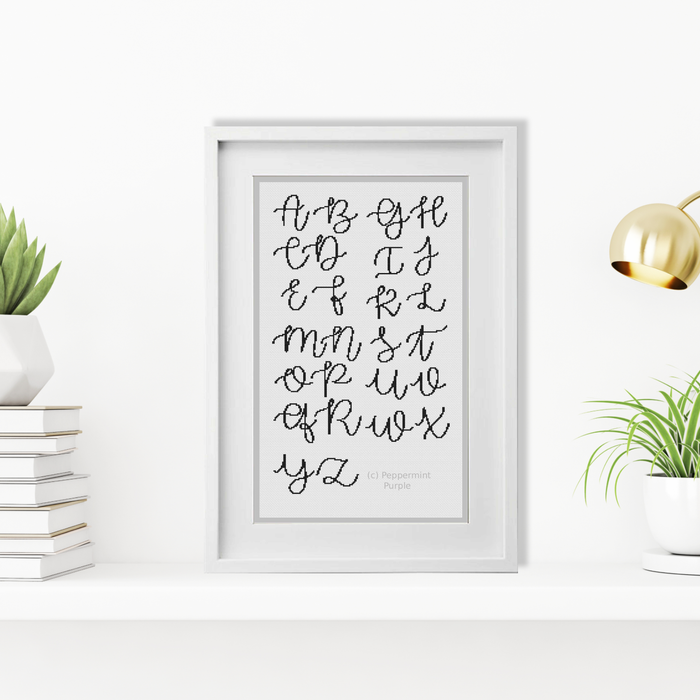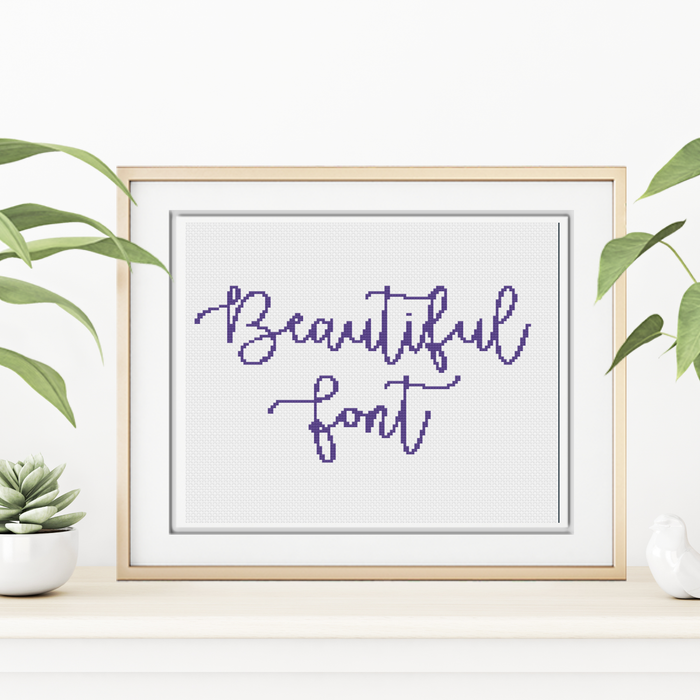
Beautiful Font
Cross Stitch Font
This Chart contains full Upper and Lower case alphabets, numbers and instructions on how to use the chart so that the letters are joined as shown in the pictures.
Tallest letter is 34 stitches high